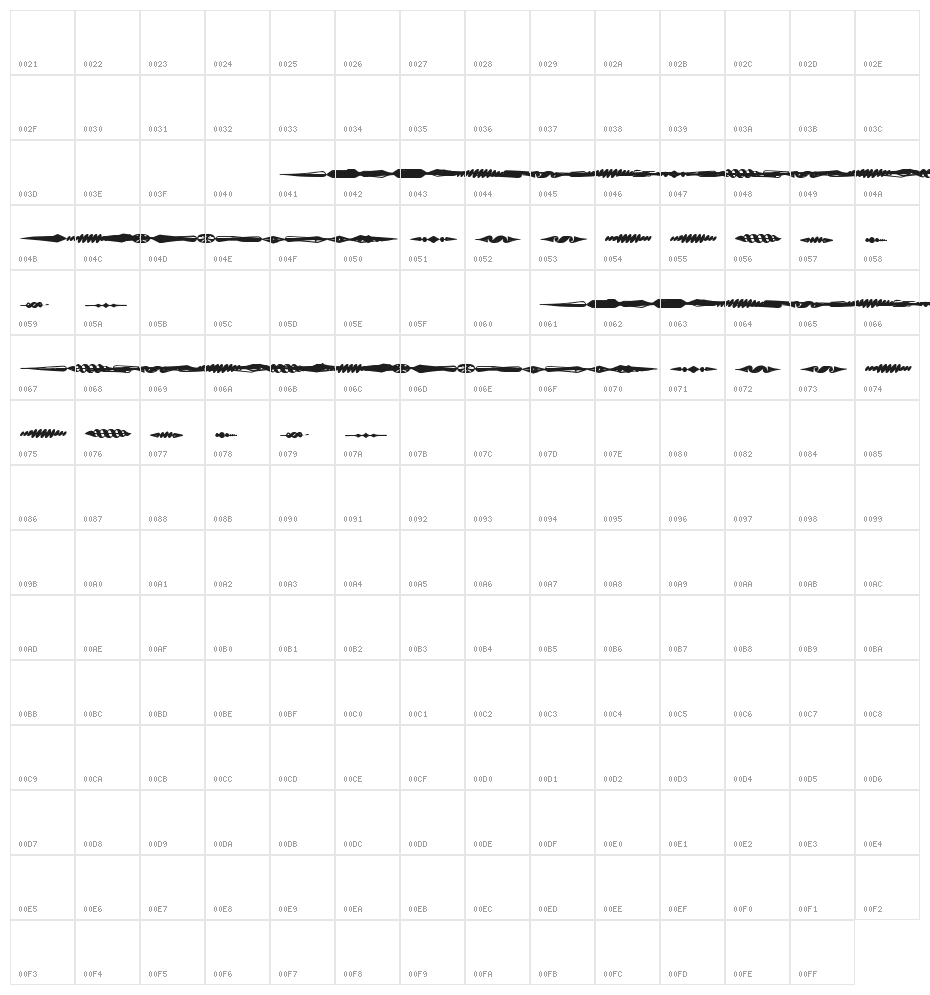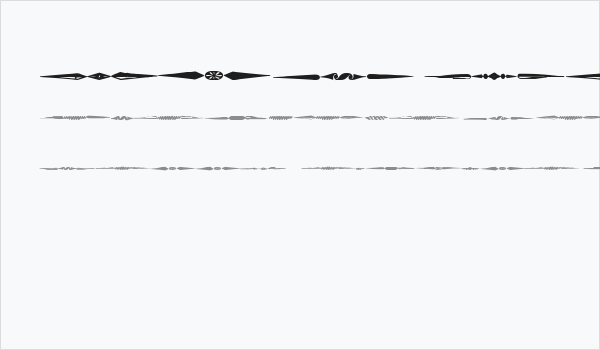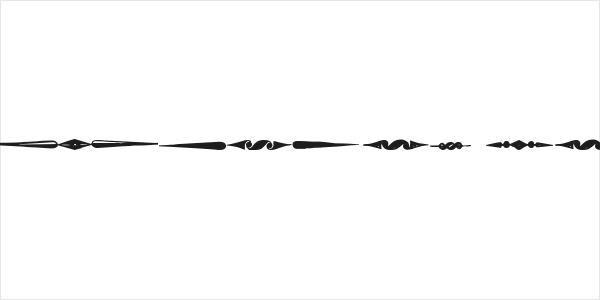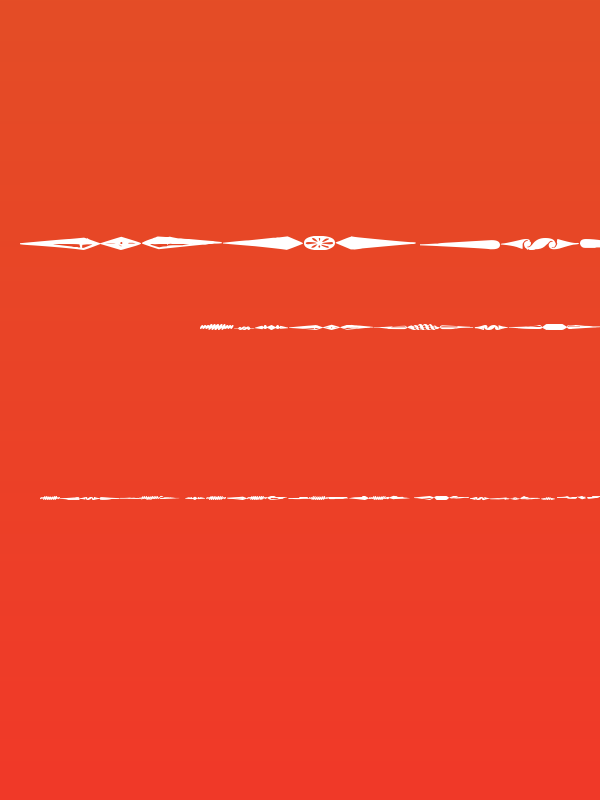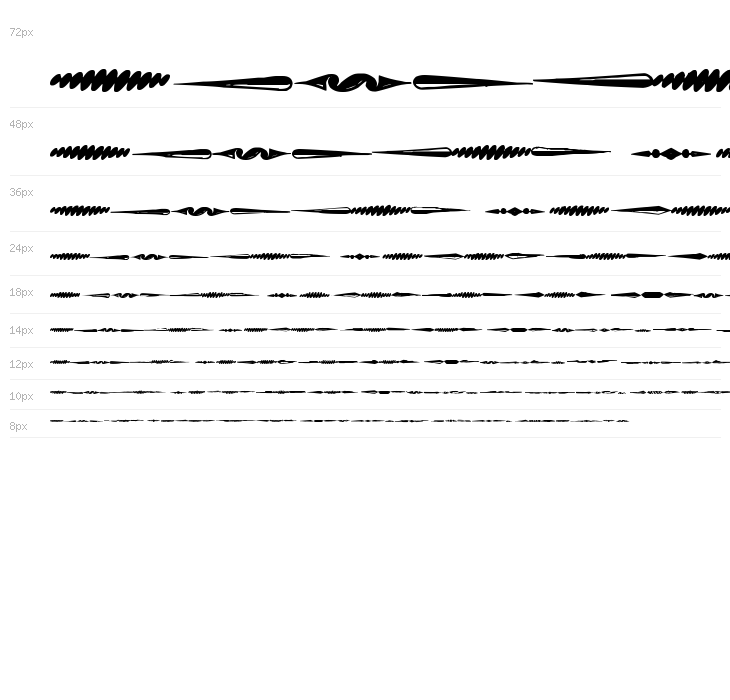
old foundry prints tfb Font
old foundry prints tfb Description
Ornamental and decorative border elements with intricate, vintage-inspired detailing, resembling old foundry print flourishes. The designs are linear and symmetrical, suitable for embellishing printed materials.
| Overall Style | Vintage, Decorative |
| Use Case | Borders, Dividers, Decorative accents |
| Proposed Projects | Invitations, certificates, book covers, posters, vintage-themed branding, decorative dividers. |